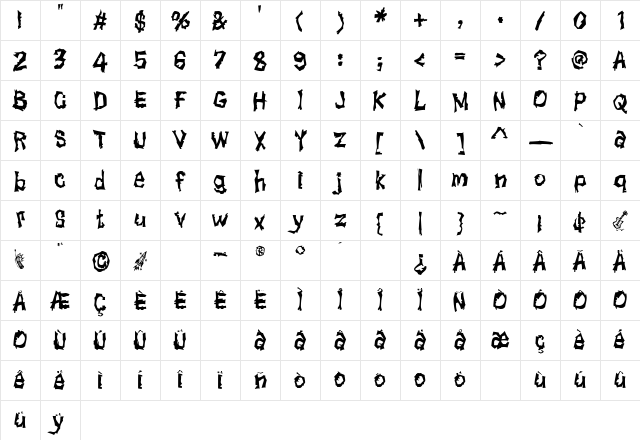
WhosFrank Regular Free Font
WhosFrank Regular
Design Context for WhosFrank
WhosFrank is a composed and adaptable typeface that performs quietly and consistently across a wide range of design contexts.